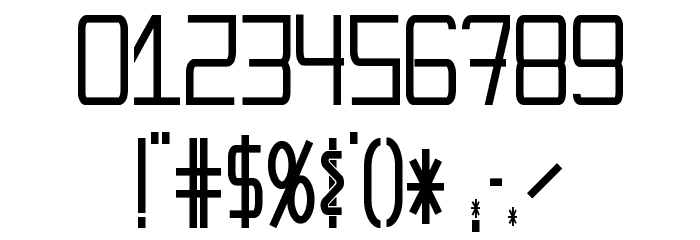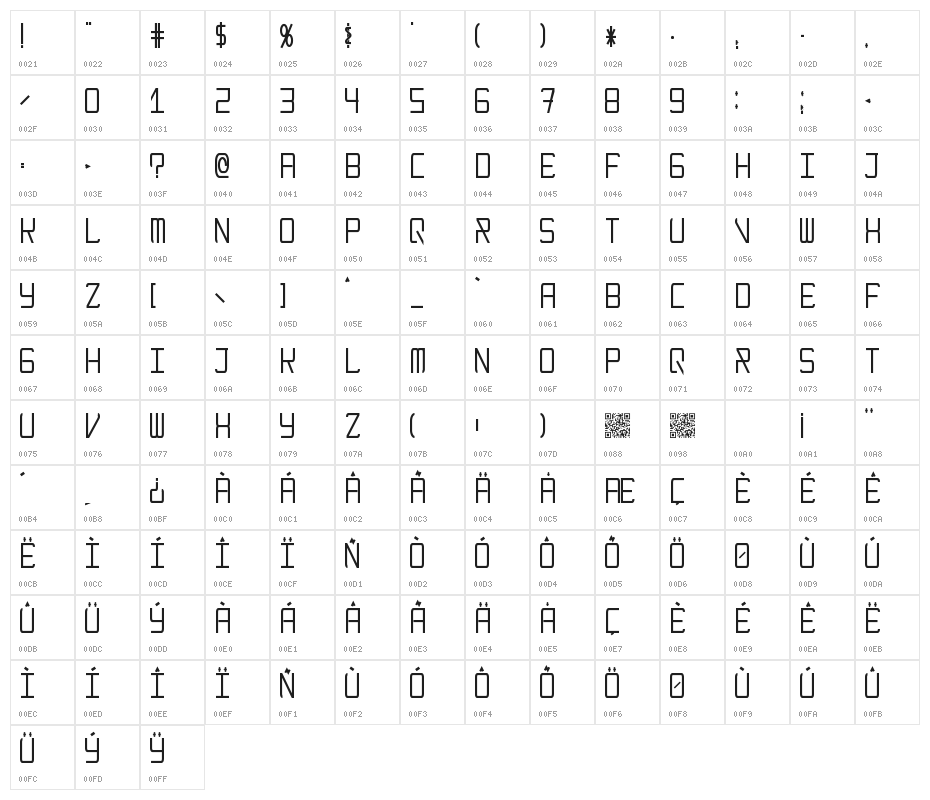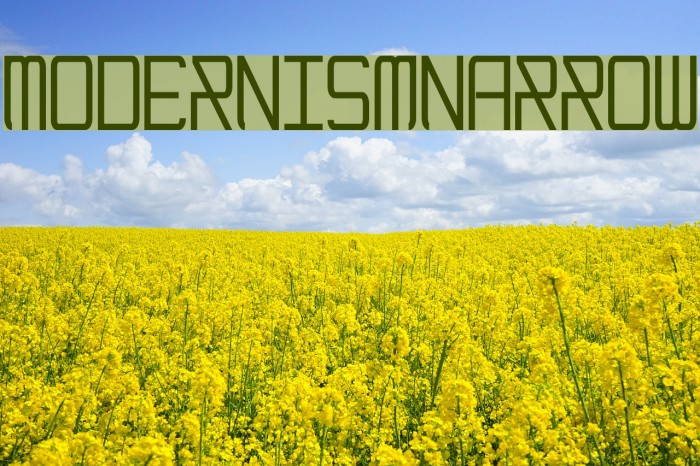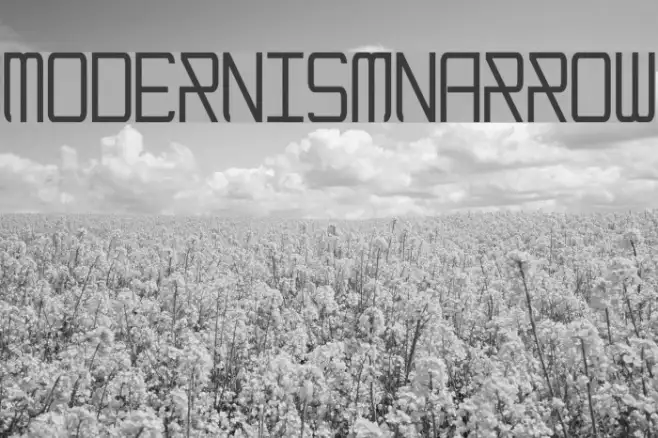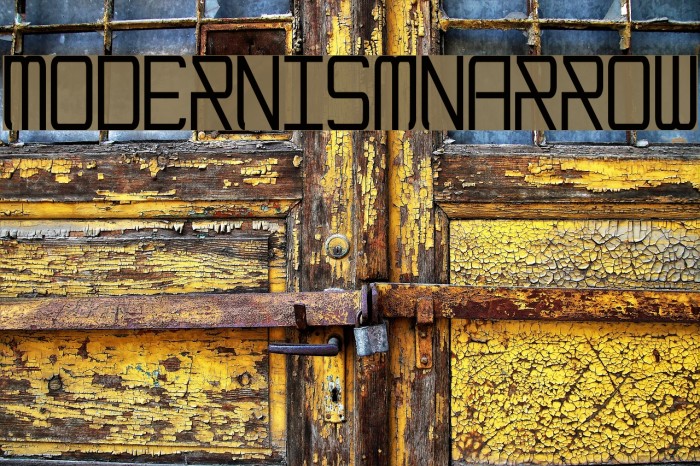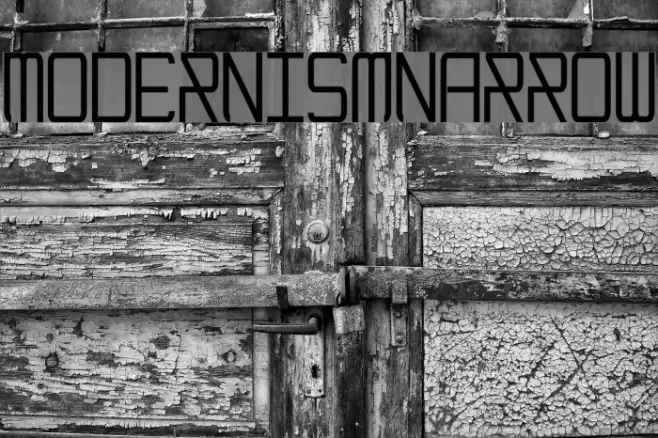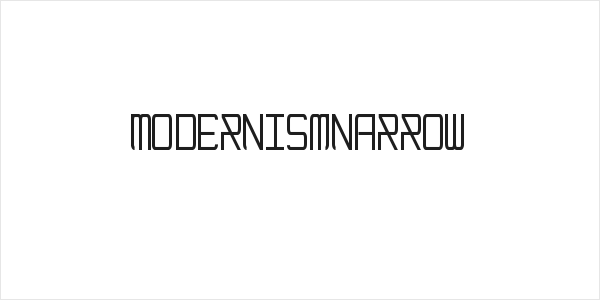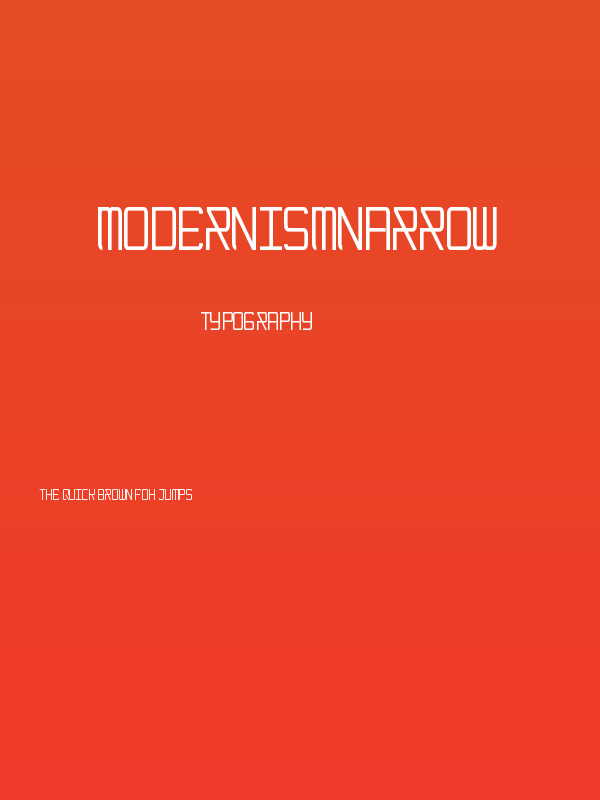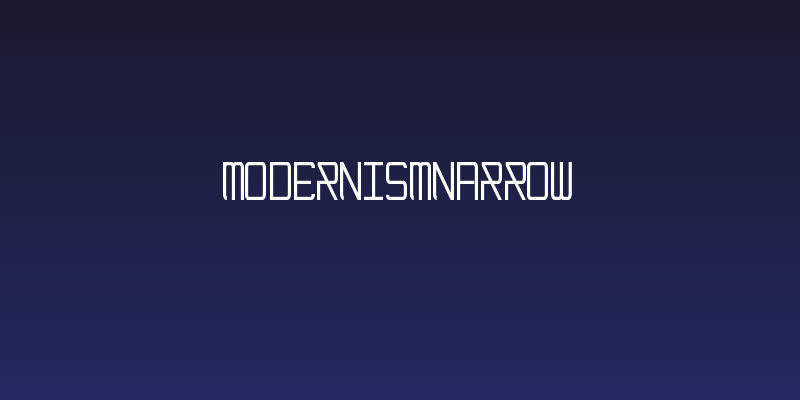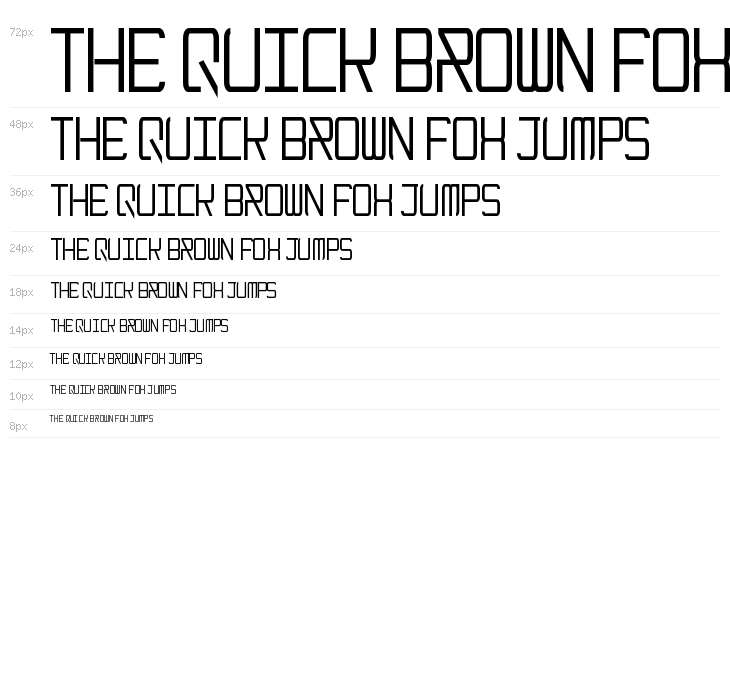
ModernismNarrow Font
ModernismNarrow Description
This font features a sleek, geometric design with a modern aesthetic. The characters are narrow and elongated, giving a sense of height and elegance. The strokes are consistent in width, creating a uniform appearance that is both clean and sophisticated. The uppercase and lowercase letters maintain a similar structure, enhancing readability while preserving a distinct style. The numerals and special characters are designed to complement the alphabet, ensuring a cohesive look across all text. This font is ideal for projects that require a contemporary and minimalist touch.